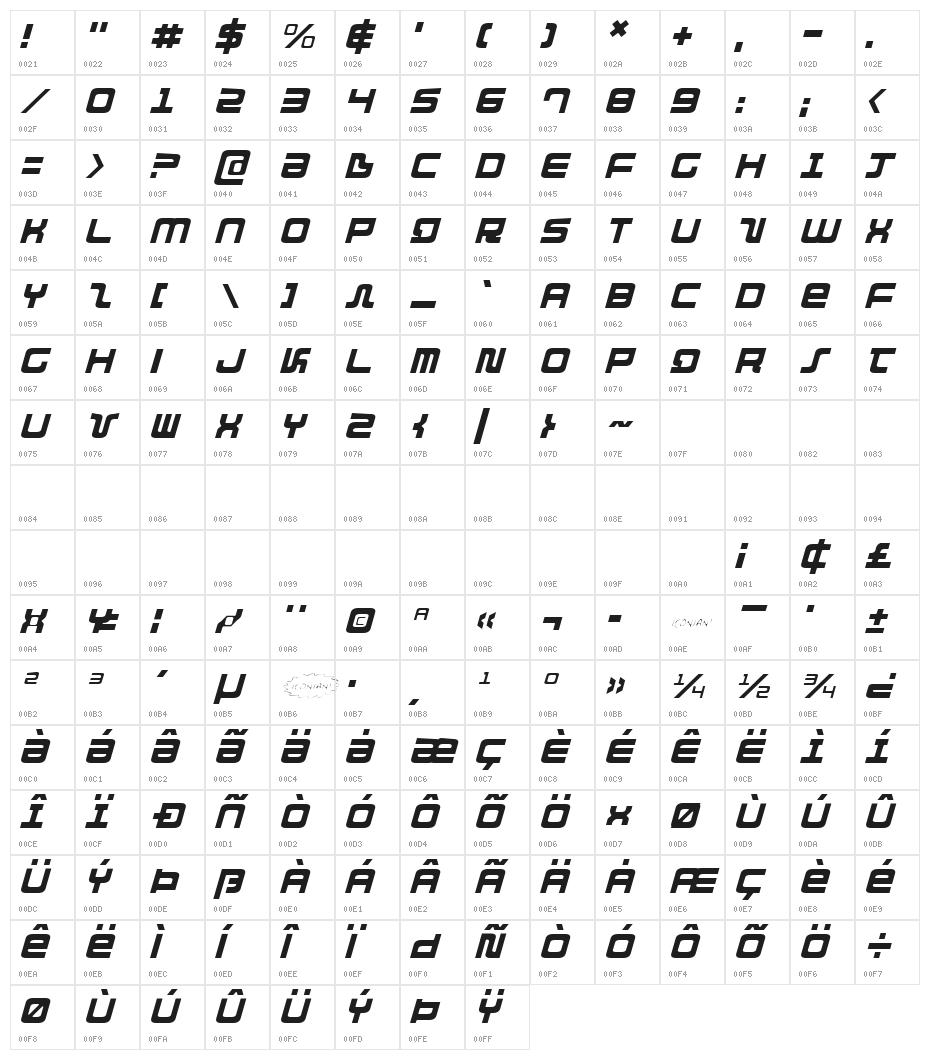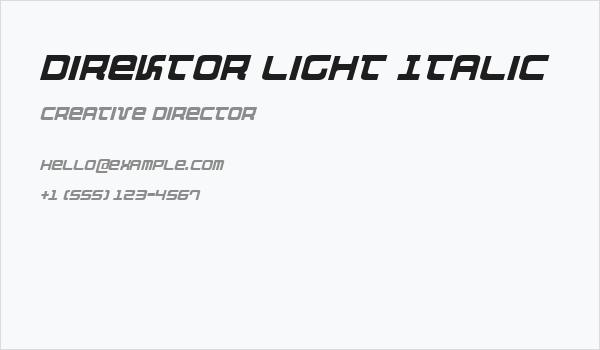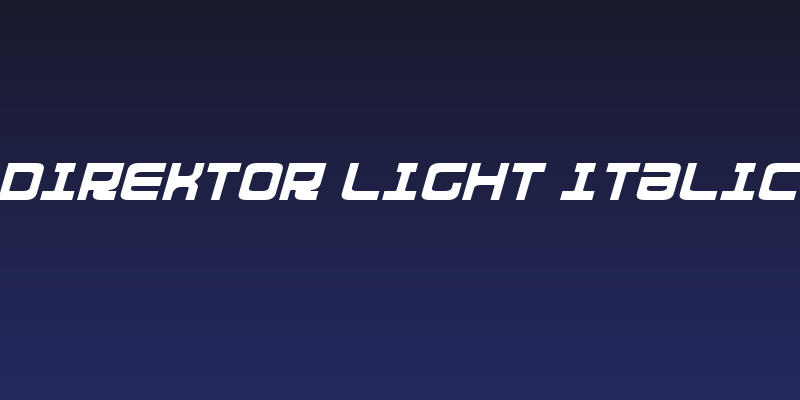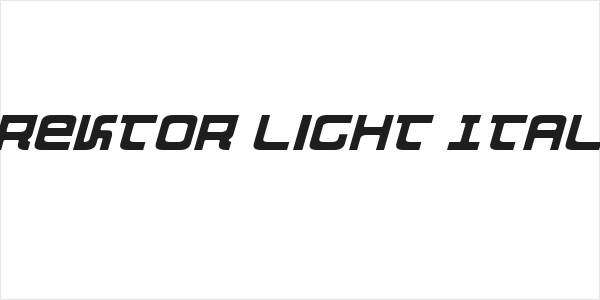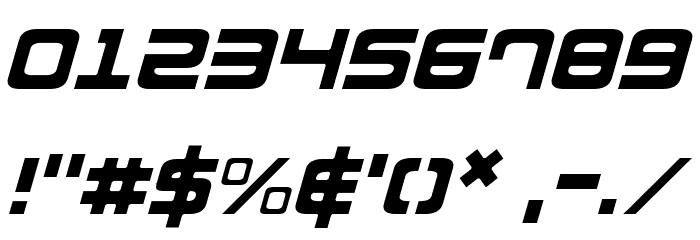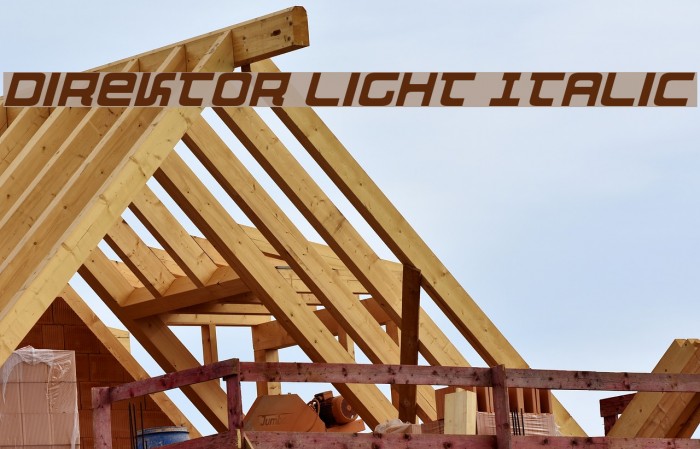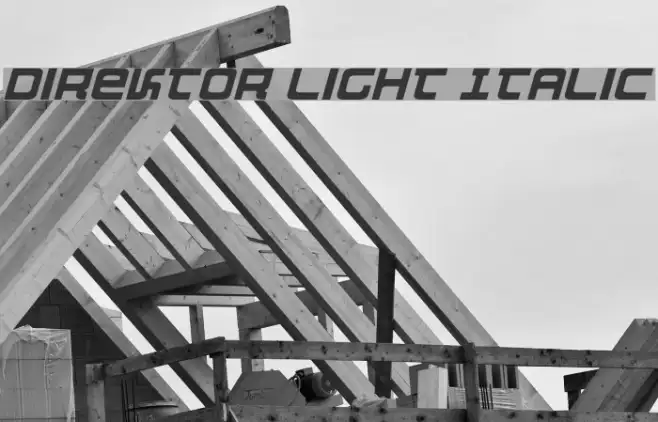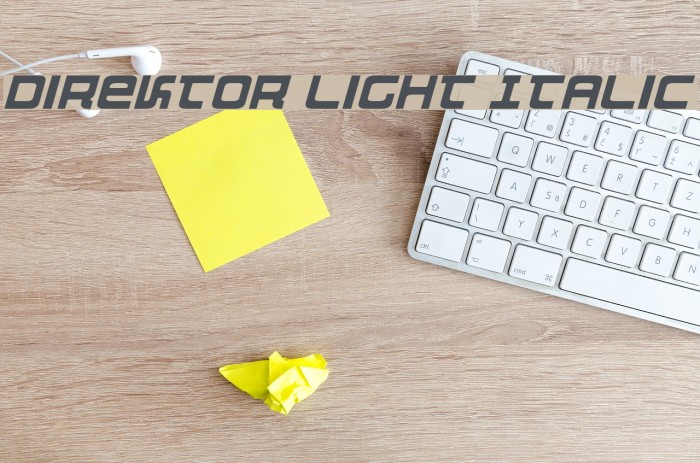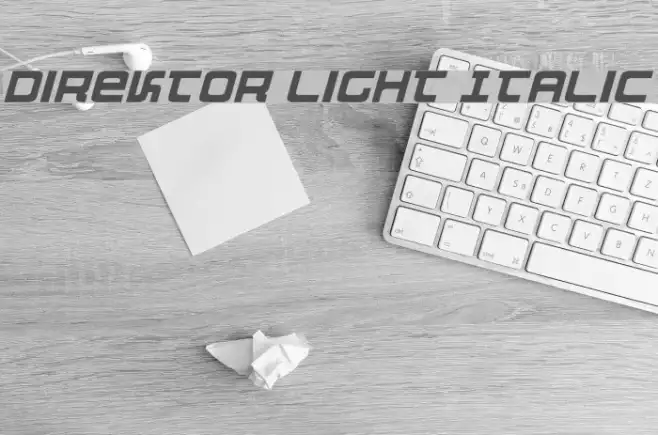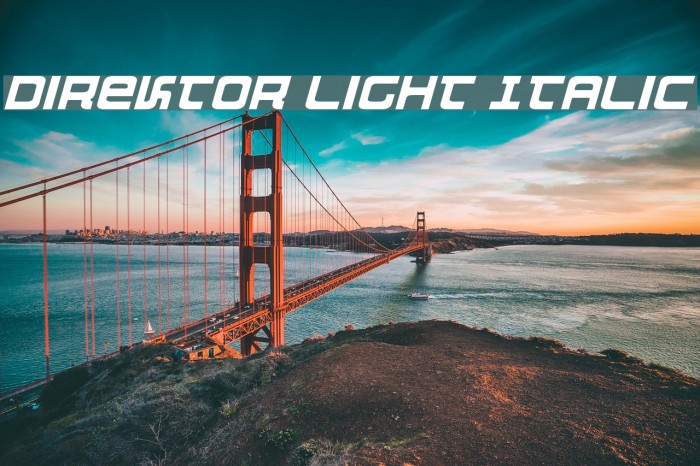
Direktor Light Italic Font
Direktor Light Italic Description
This font features a sleek, modern design with a distinct italic slant that gives it a dynamic and forward-moving appearance. The characters are constructed with a geometric precision, showcasing clean lines and a uniform stroke width that maintains consistency across all glyphs. The uppercase and lowercase letters are well-balanced, and the numerals are clear and easily distinguishable. Special characters are designed to complement the overall aesthetic, making this font versatile for various applications. The spacing between characters is tight, enhancing its compact and efficient look.
| Use Case | Headlines, Logos, Digital Media |
| Proposed Projects | Ideal for branding, advertising, and digital media projects that require a modern and dynamic typeface. |